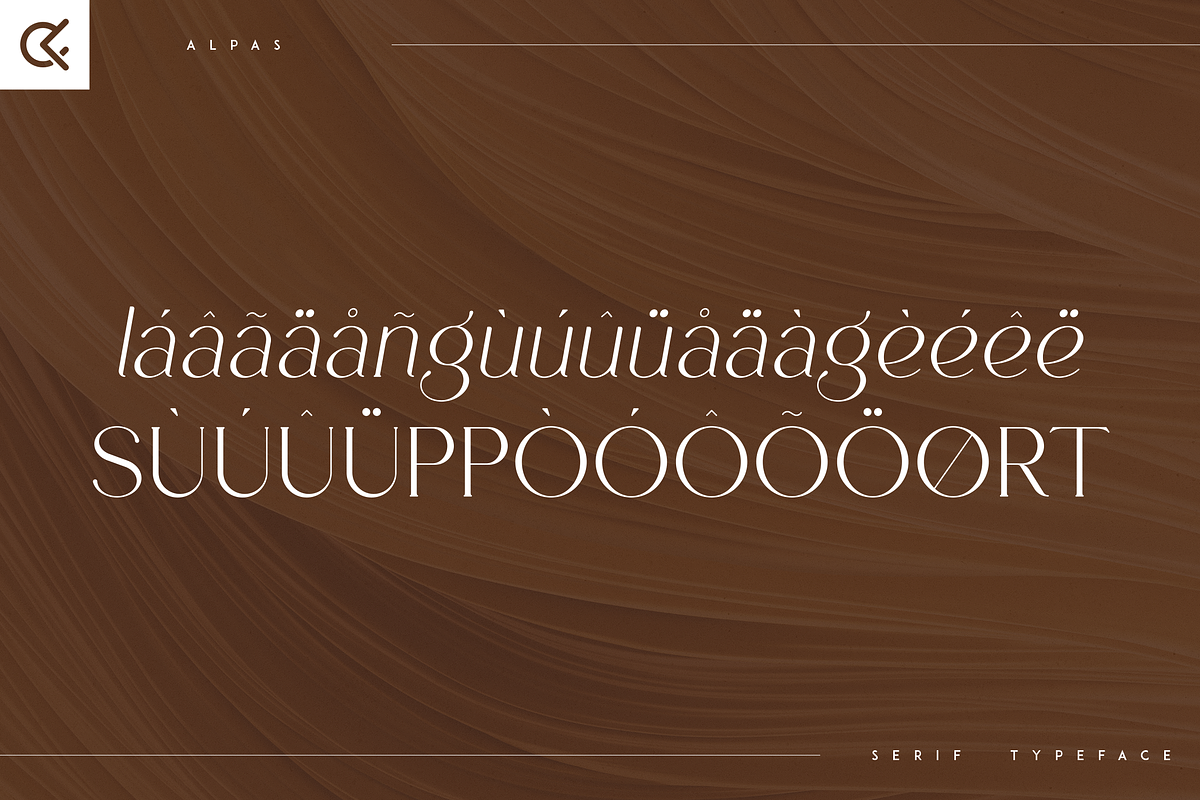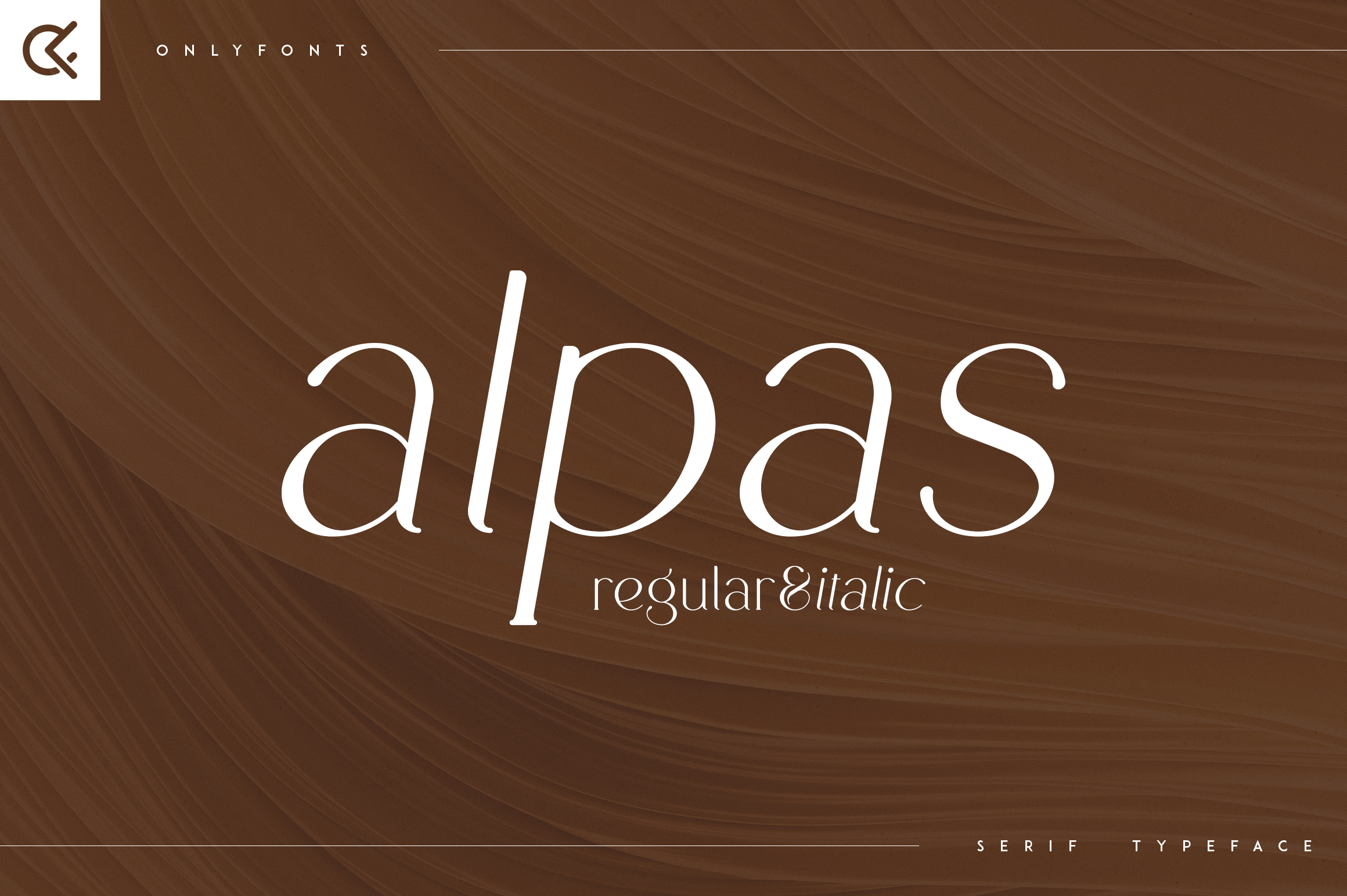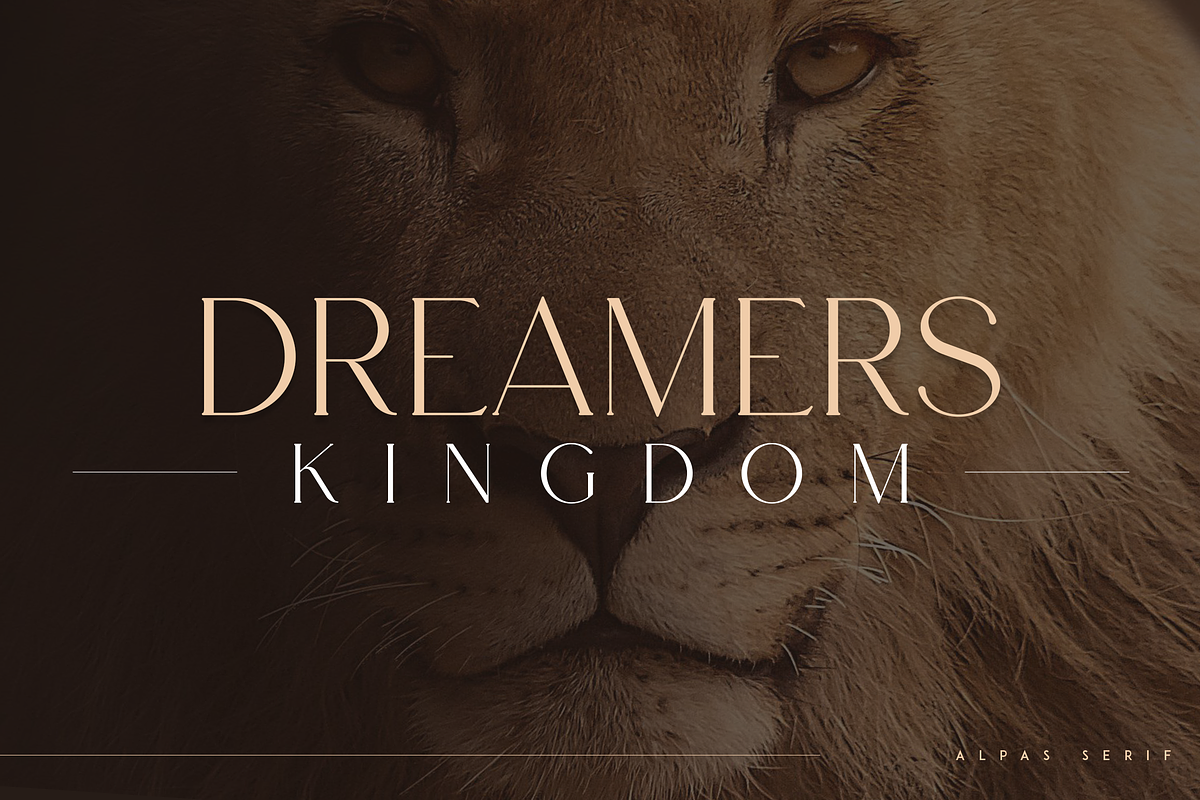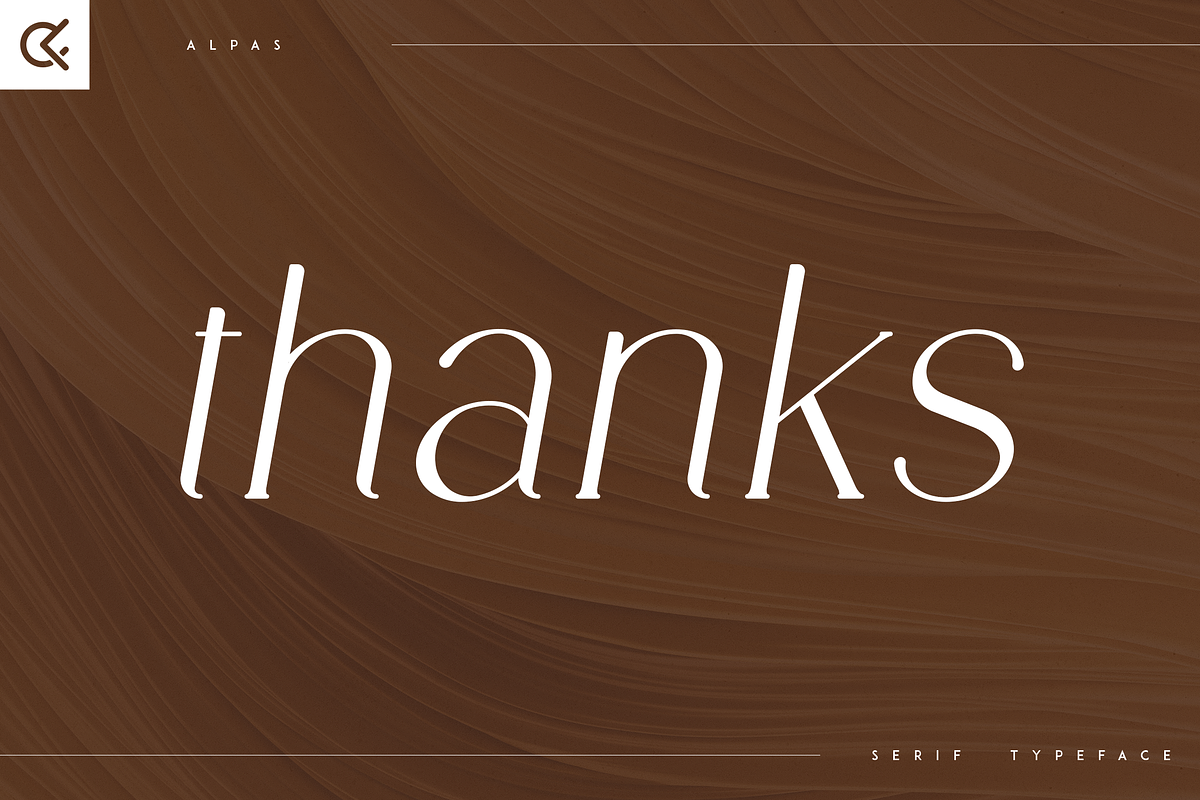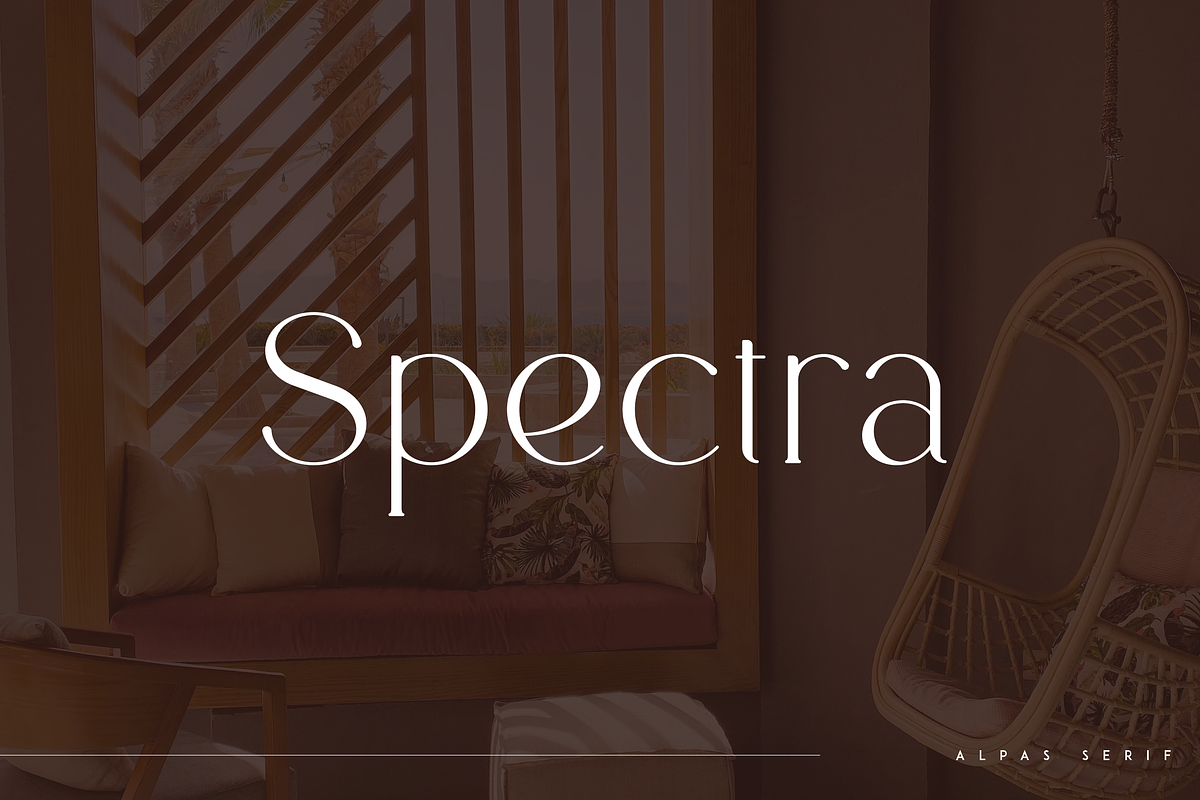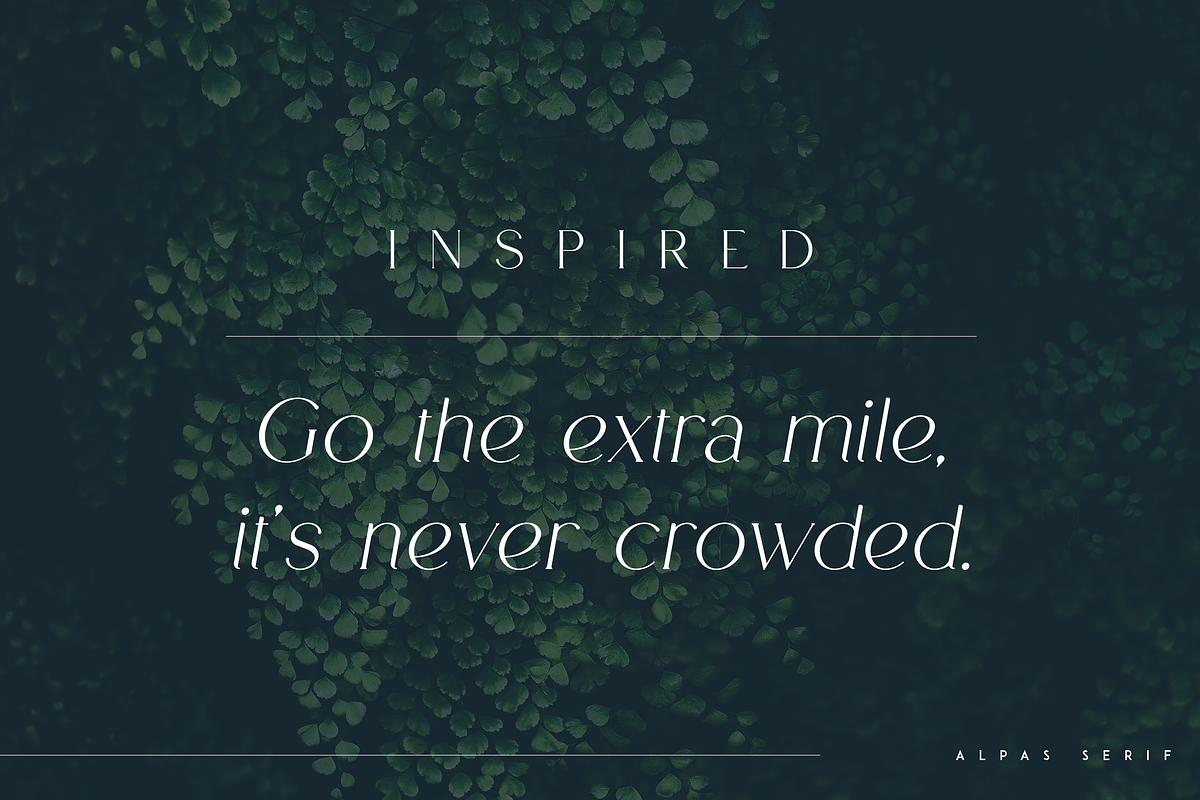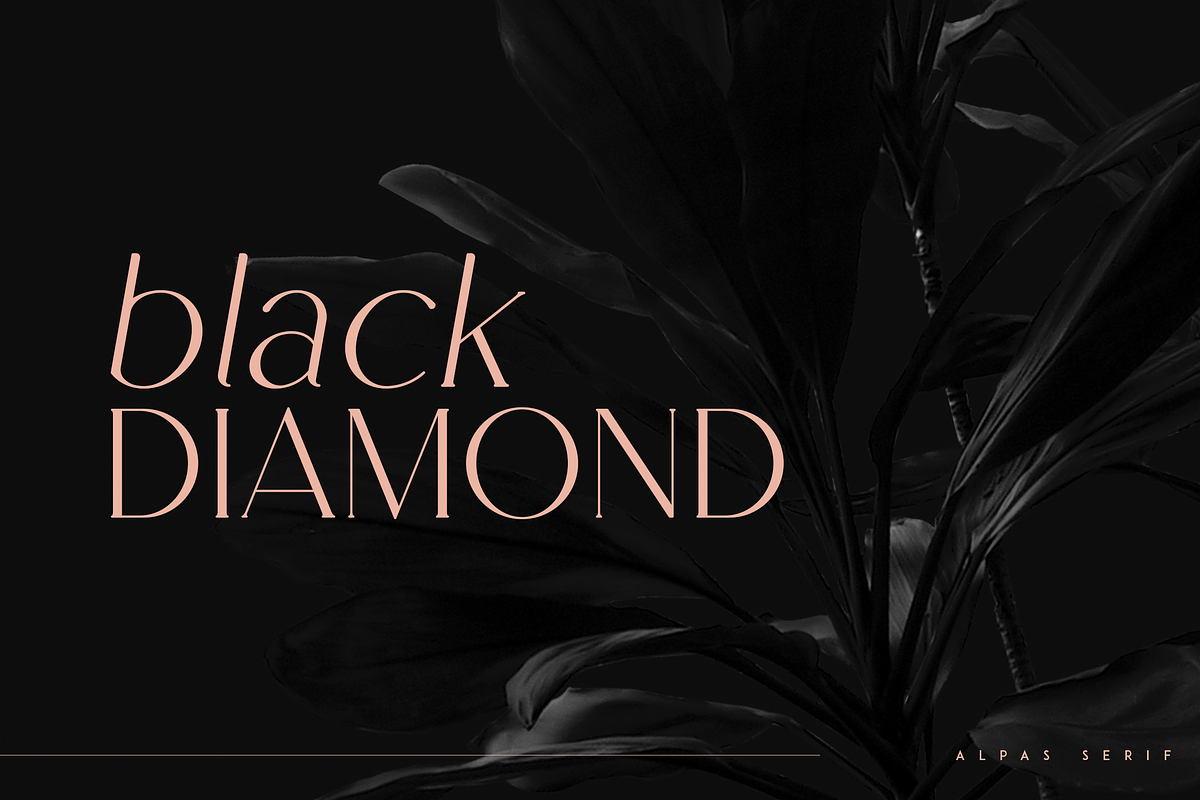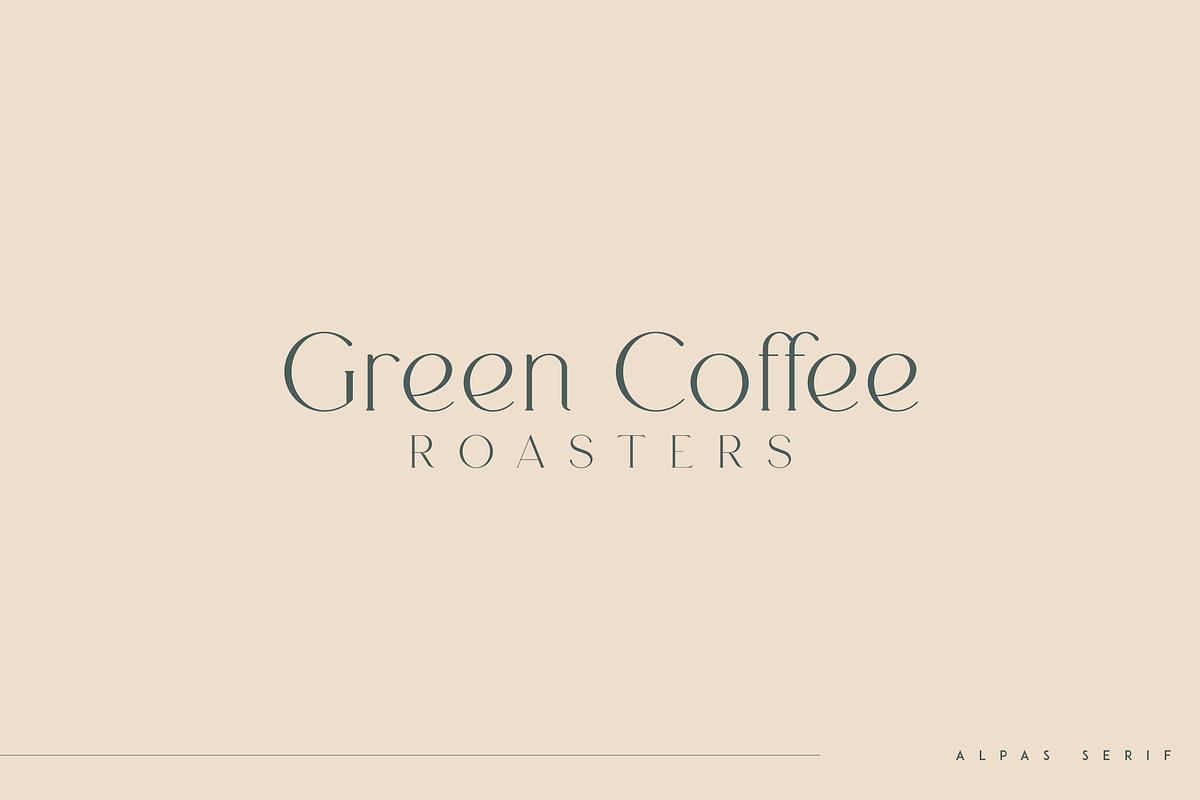
Alpas - soft serif typeface
Introducing Alpas - soft serif typeface
Alpas is rounded and soft font with multilingual support. It's a very versatile font that works great in large and small sizes.
This font is perfect for branding projects, home-ware designs, product packaging, magazine headers - or simply as a stylish text overlay to any background image.
- Uppercase, lowercase, numeral, punctuation & Symbol
- regular and italic versions